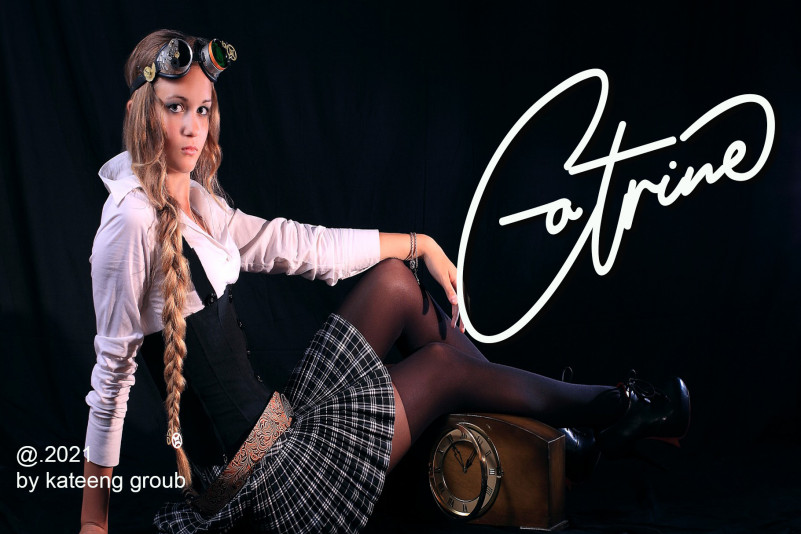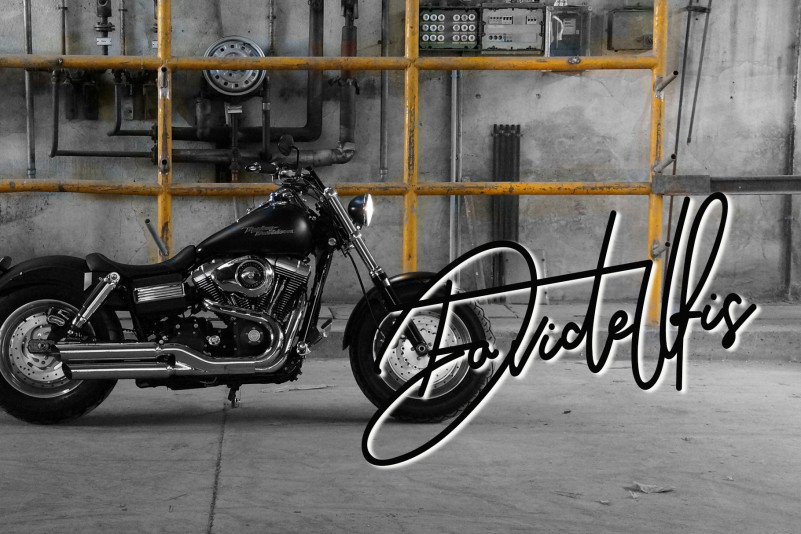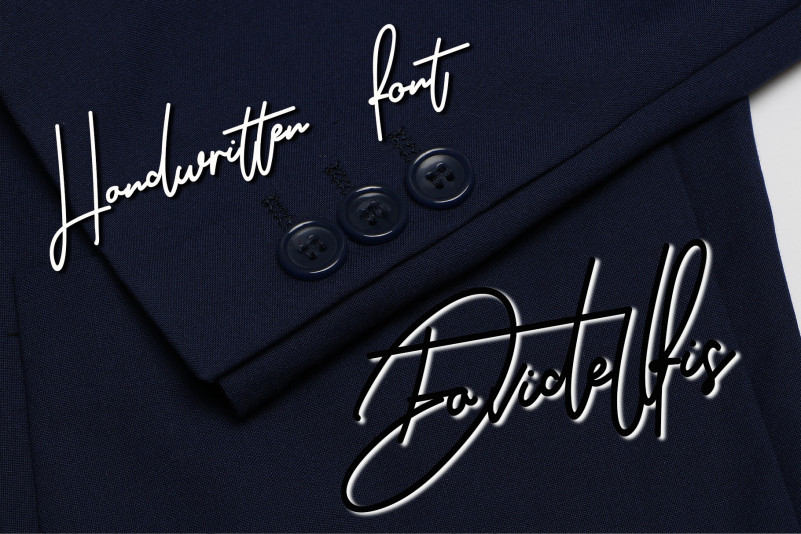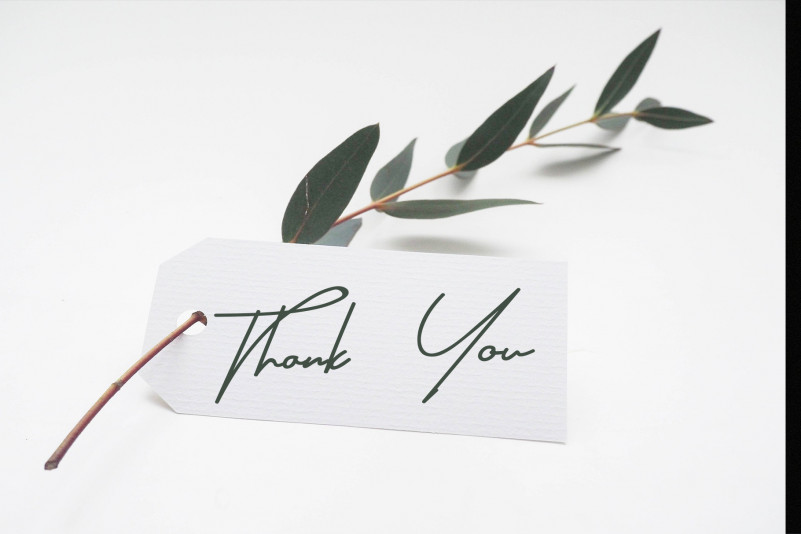
Diana And Shelly Font
Diana And Shelly Handwritten Font
This is a unique and simple handwritten font. Itt is very suitable for all kinds of crafts, mockups, logos, business cards, invitation cards, and more.